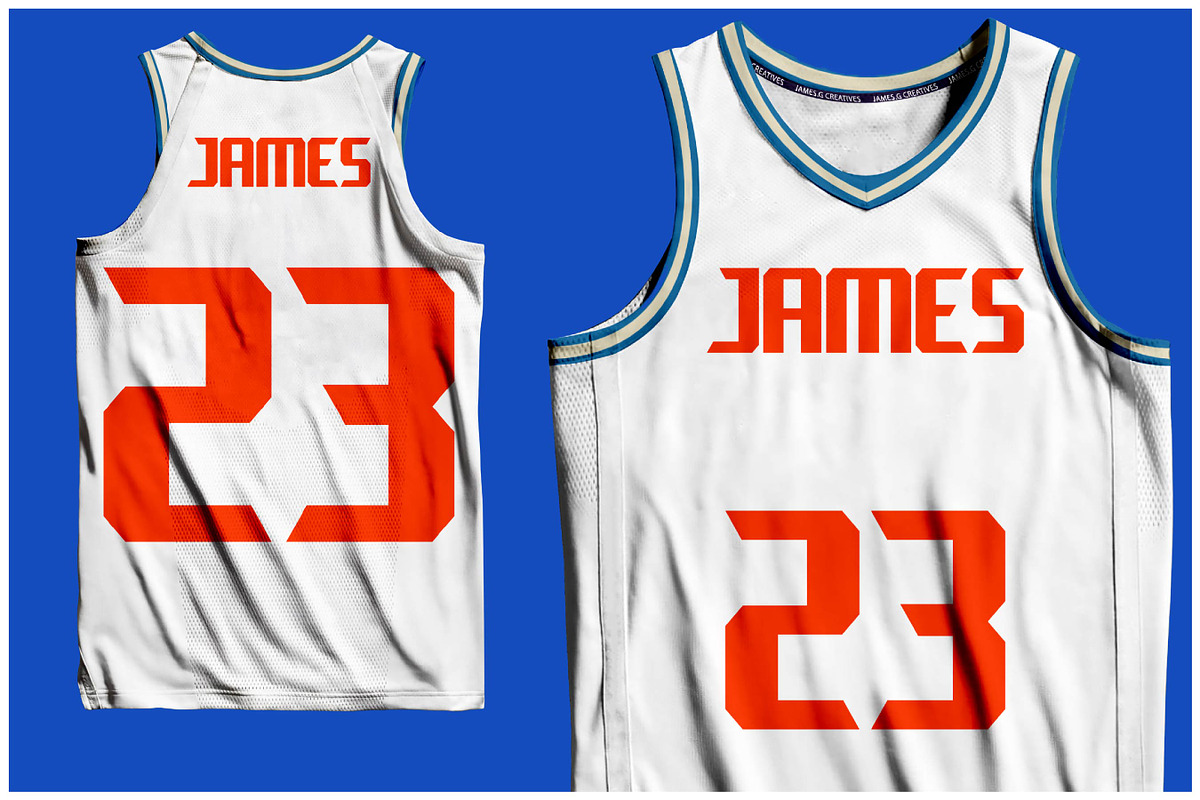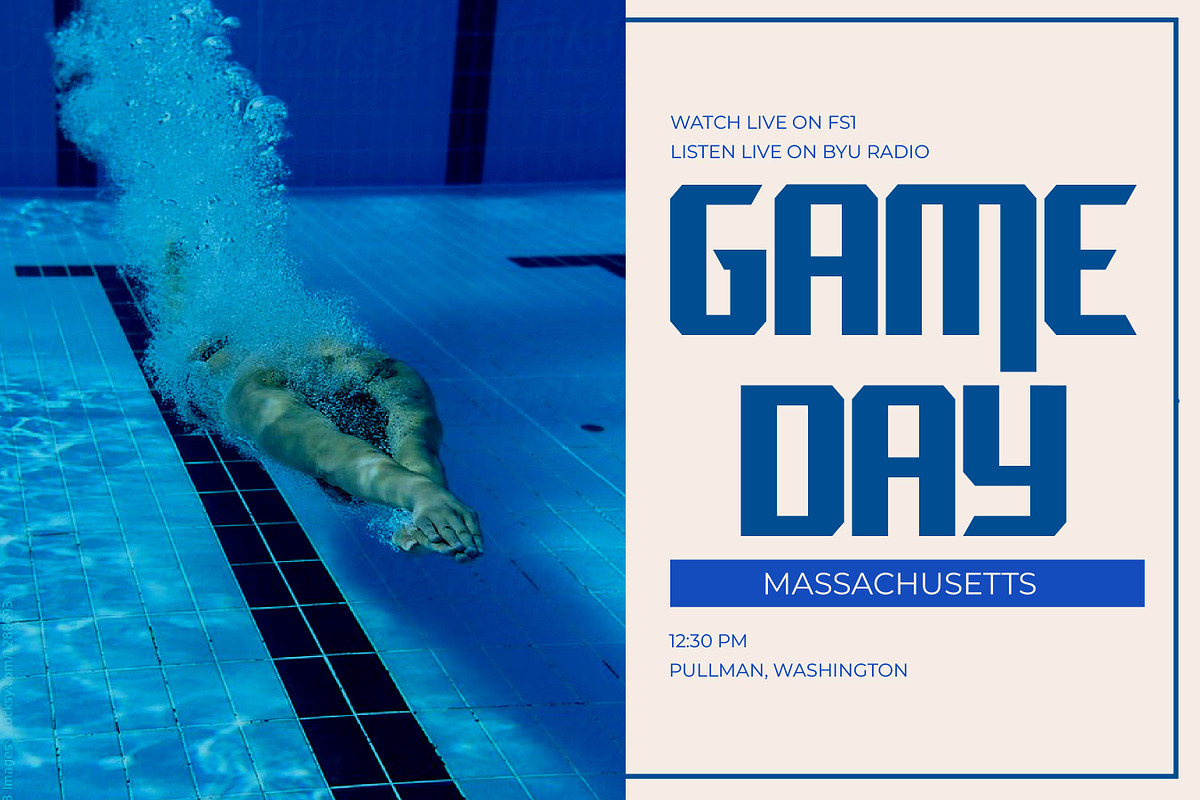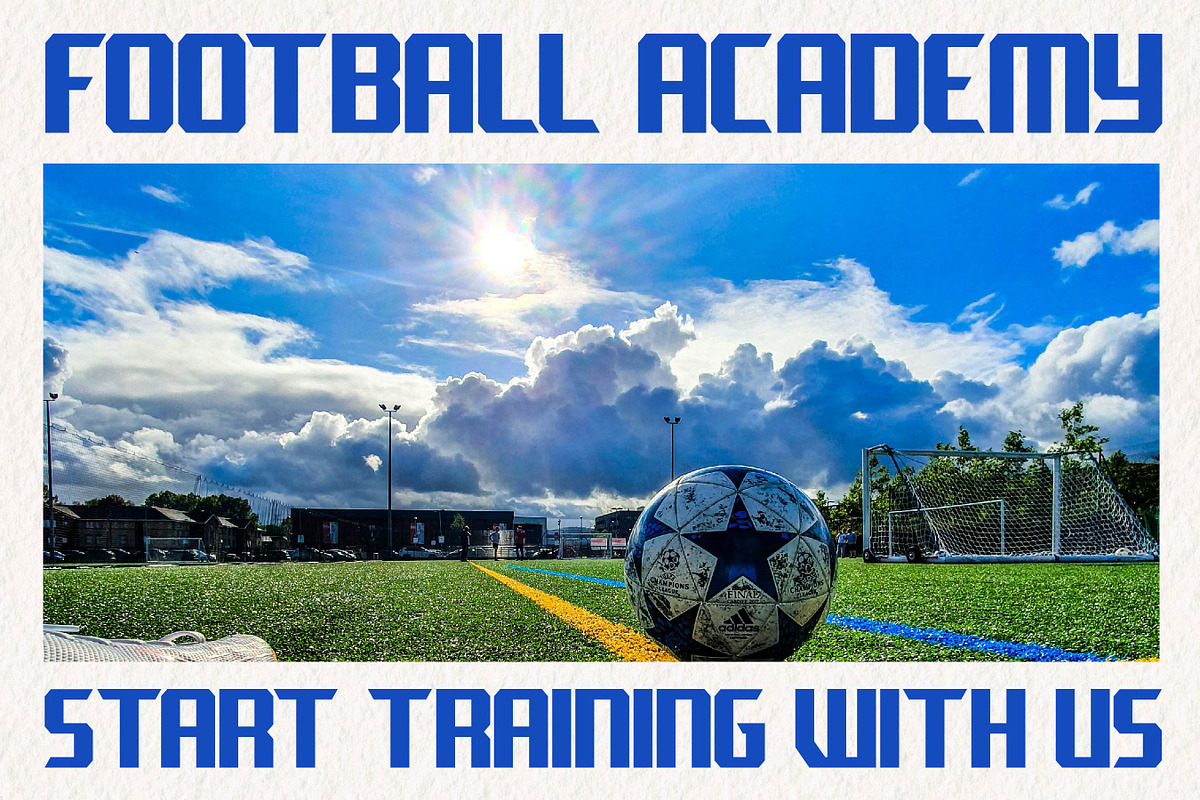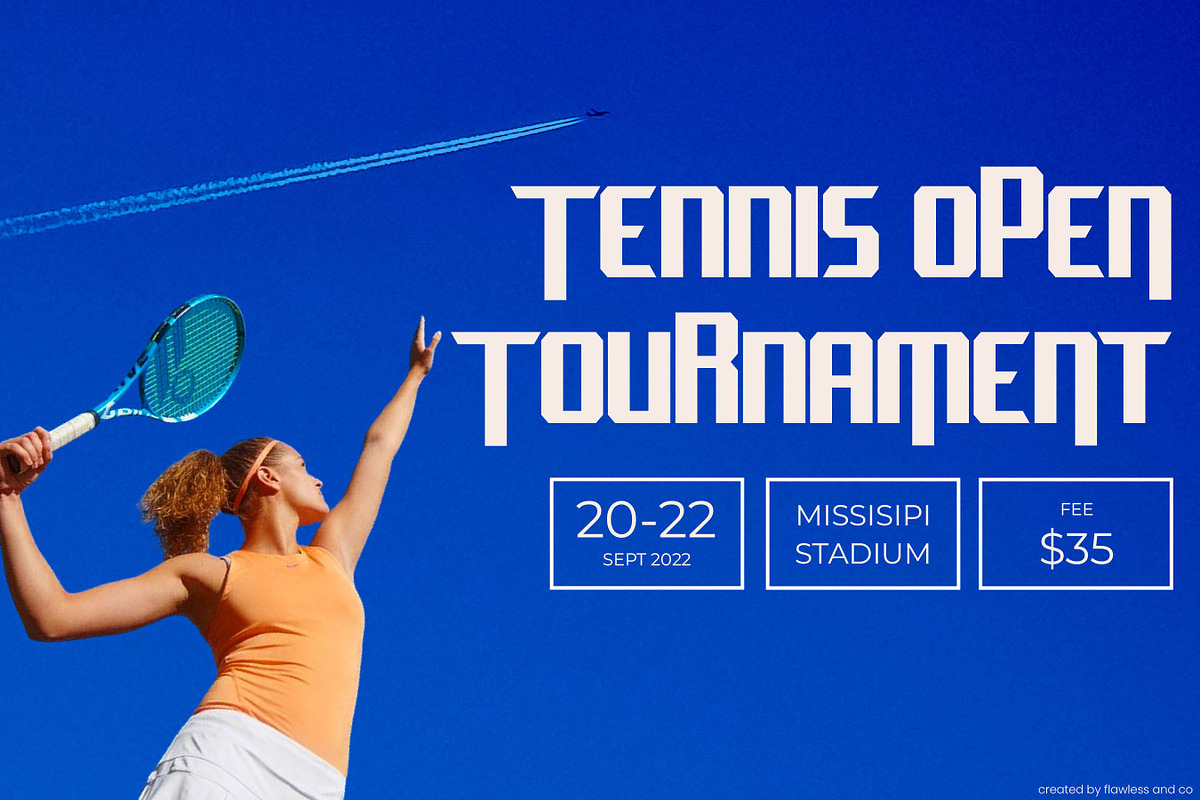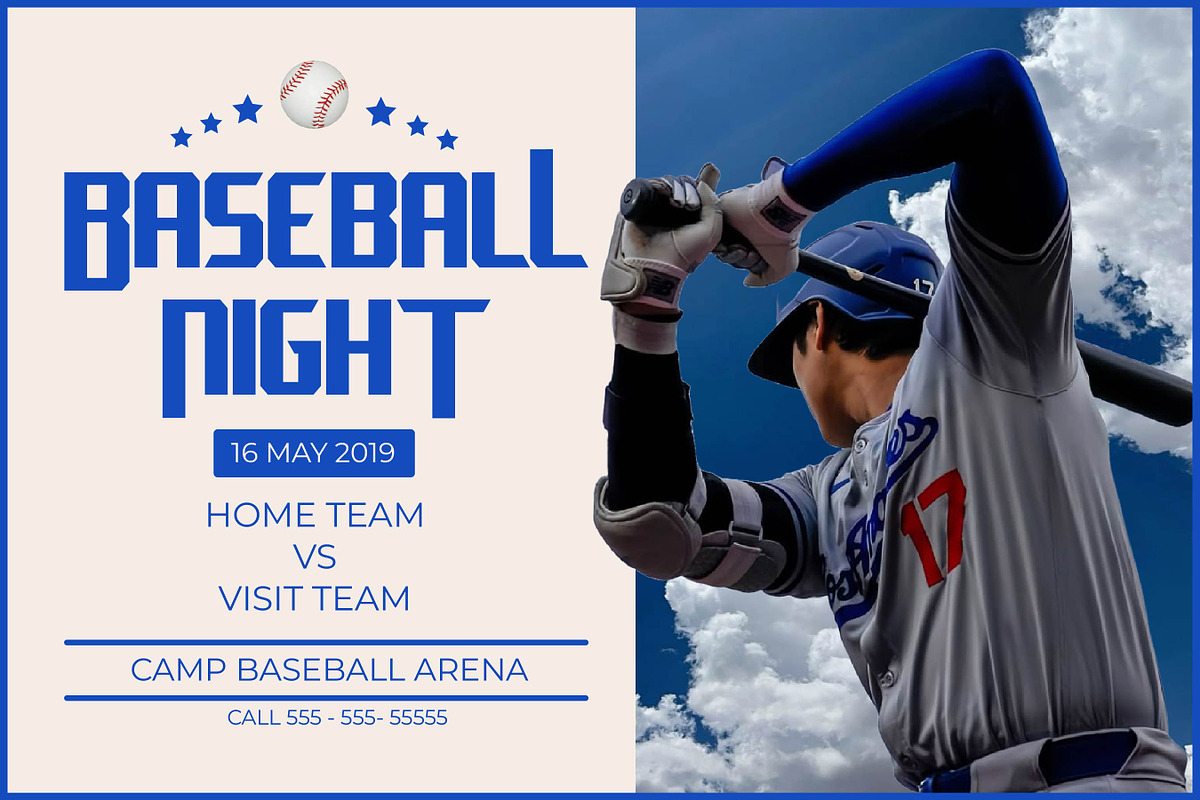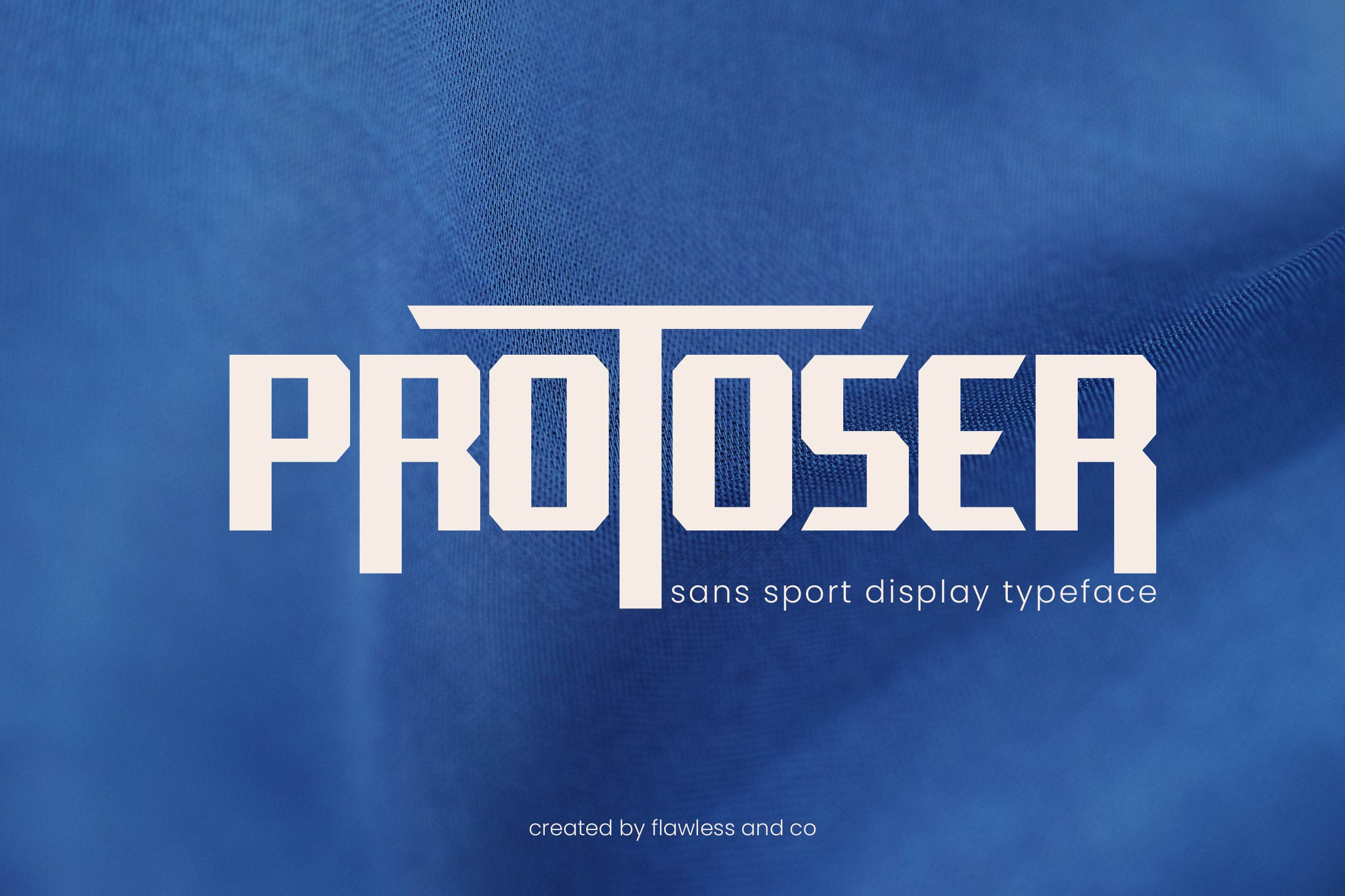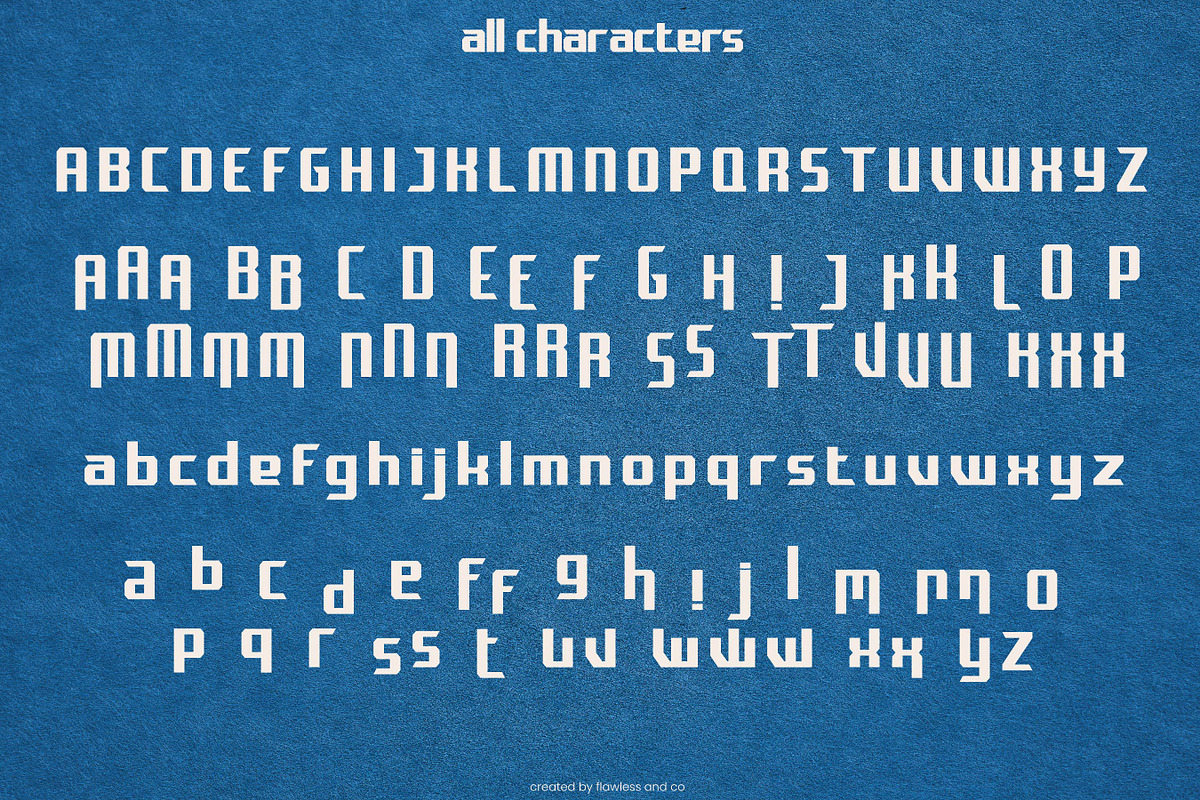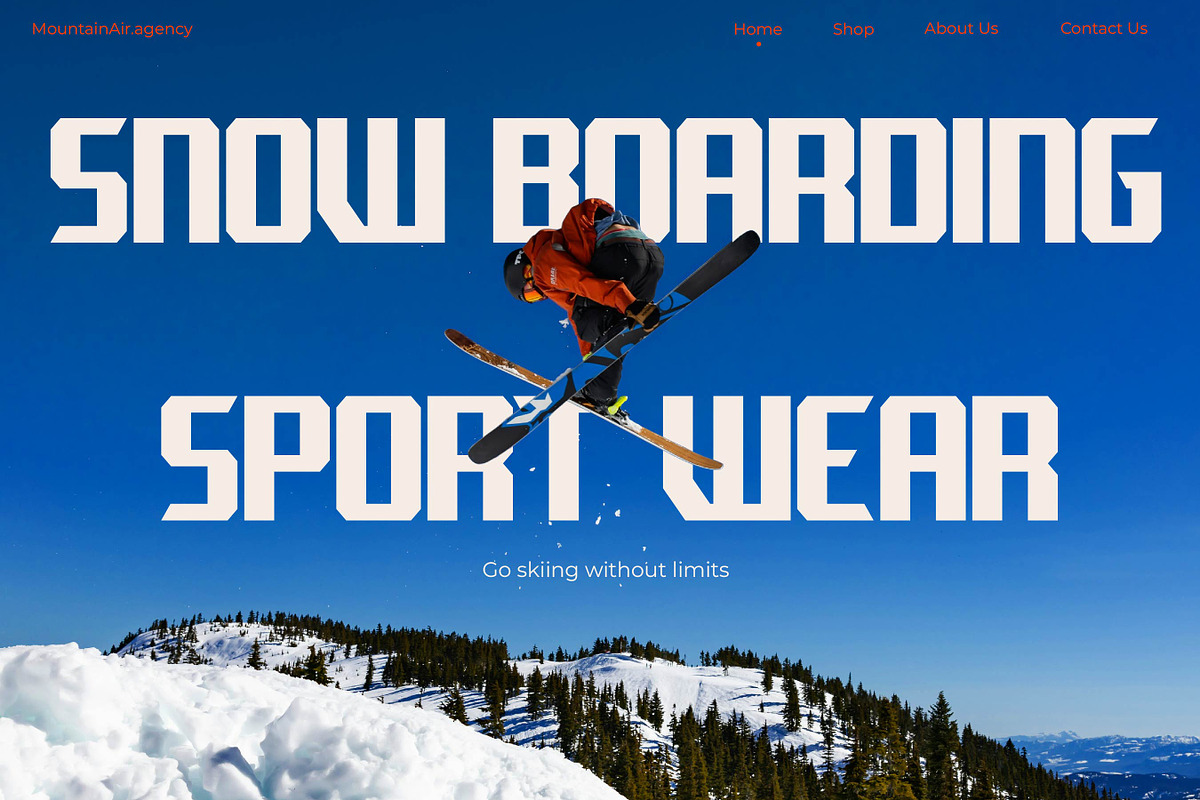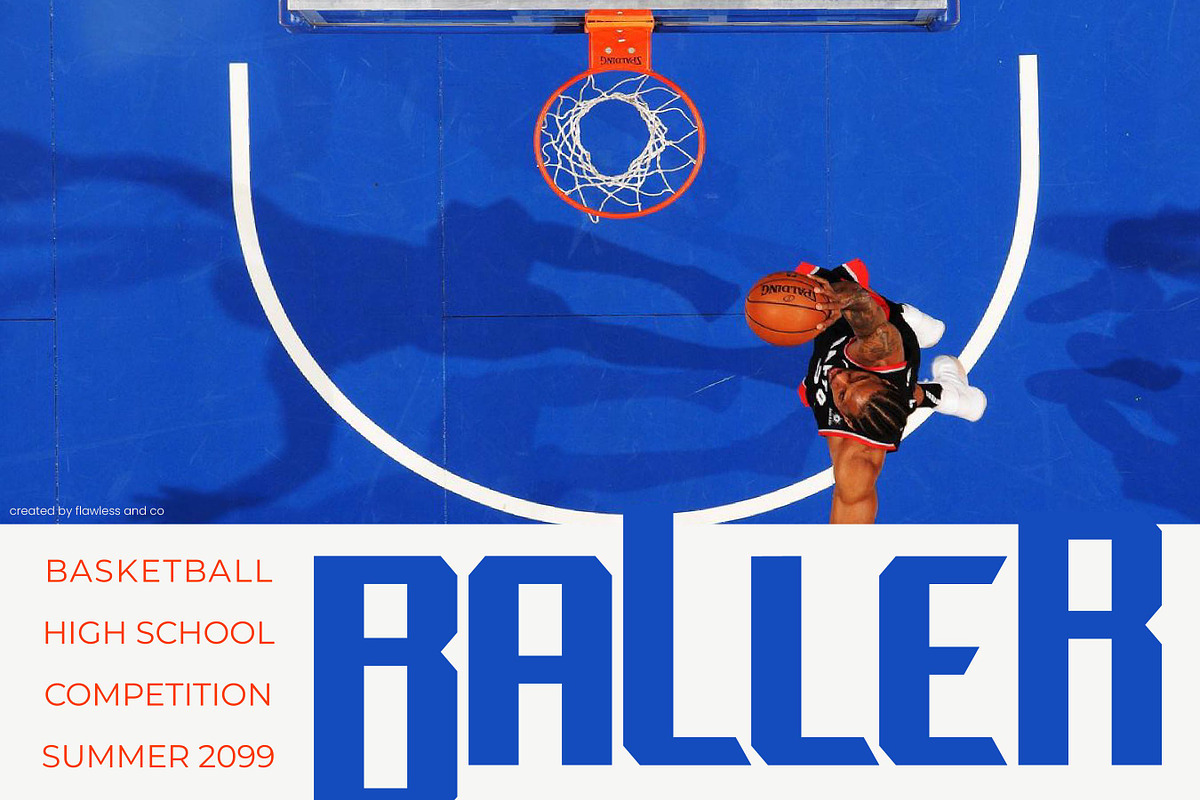
Protoser - Sports Font
Protoser – Sport Sans Display Typeface
Protoser is a dynamic sport sans display font that brings sharp intensity and forward momentum to every design. Its unique letterforms, strong verticals, and futuristic flair make it the perfect choice for sports branding, tournament posters, performance apparel, and energetic titles that demand attention. Built with a powerful geometric structure and a striking presence, Protoser exudes confidence and modern athleticism. Whether you're working on a team logo, gym promotion, esport visuals, or high-impact merchandise, this font delivers speed, energy, and clarity in every letter.
Protoser doesn’t just fit the sport aesthetic—it defines it. Every glyph is crafted to communicate action, discipline, and drive, making it an essential tool for bold brands and creators pushing the limits of design.
- All Caps Typeface
- Unique Sport-Inspired Design
- Strong Geometry & Sharp Angle
Step into the future of sport design with Protoser—where bold vision meets high performance.
Protoser is the ideal font for designers, creators, and brands who want to communicate strength, speed, and modern athleticism. Whether you're crafting visuals for sports teams, designing bold event posters, creating standout logos for gyms or activewear brands, or developing content for digital esports platforms, Protoser gives your work the edge it needs. It's perfect for anyone who needs a font that feels energetic, futuristic, and unmistakably bold.
Protoser is a must-have for designers who want to build strong, modern, and unforgettable visual identities. Its sharp, angular forms and dynamic structure make it the perfect choice for logos and branding that demand attention. Whether you're creating for a bold startup, a sportswear label, or a high-impact event, Protoser delivers a clean and commanding presence that elevates any brand design.
Protoser stands out with its unique blend of modern edge and athletic energy, making it ideal for creating brand visuals that are bold, clean, and memorable. Its geometric letterforms project strength and precision, while the sporty style adds a dynamic and competitive character—perfect for logos that need to inspire confidence and action. Whether you're designing for a sports team, streetwear brand, or energetic startup, Protoser ensures your message is delivered with power and clarity.